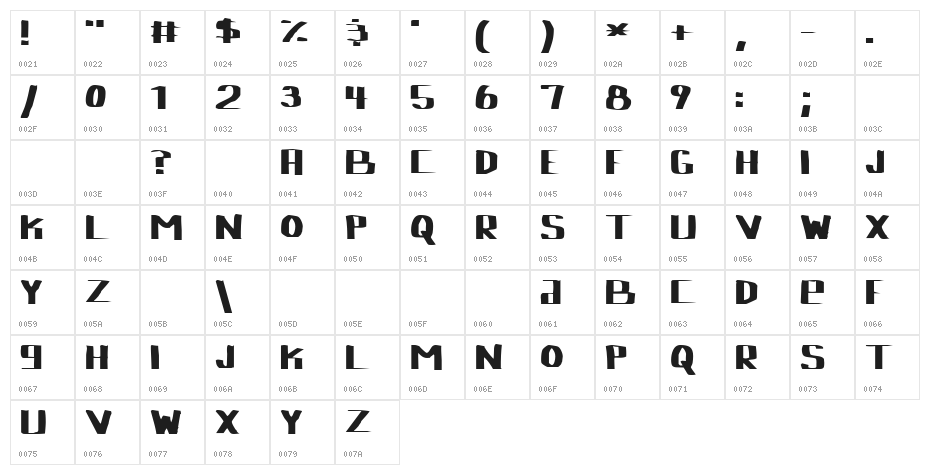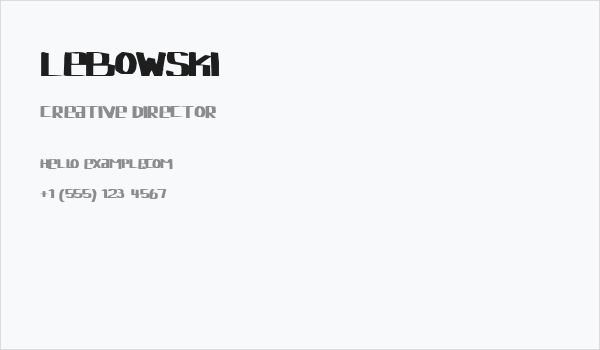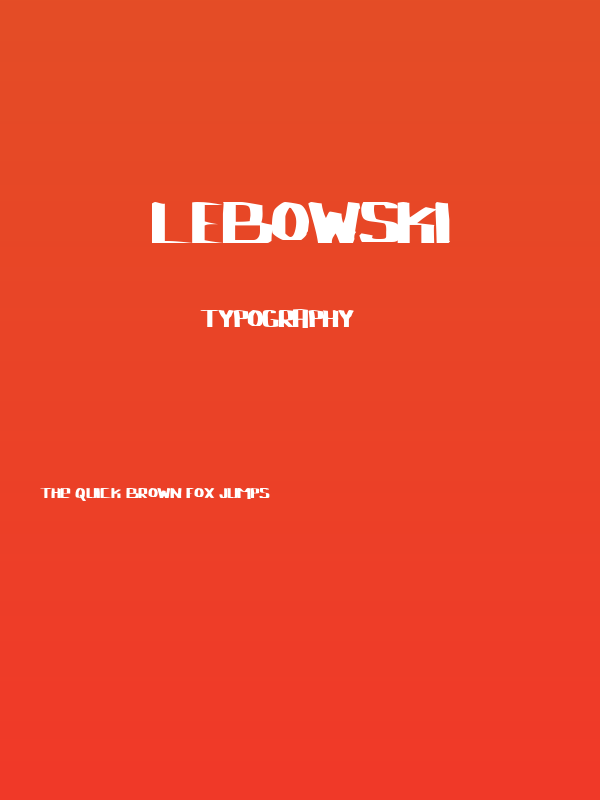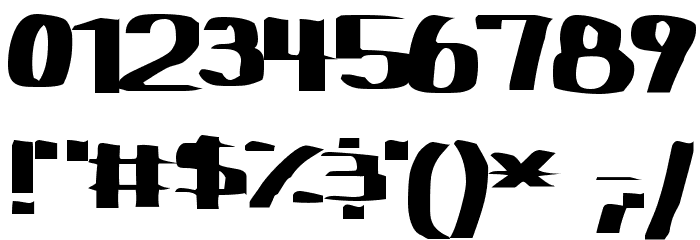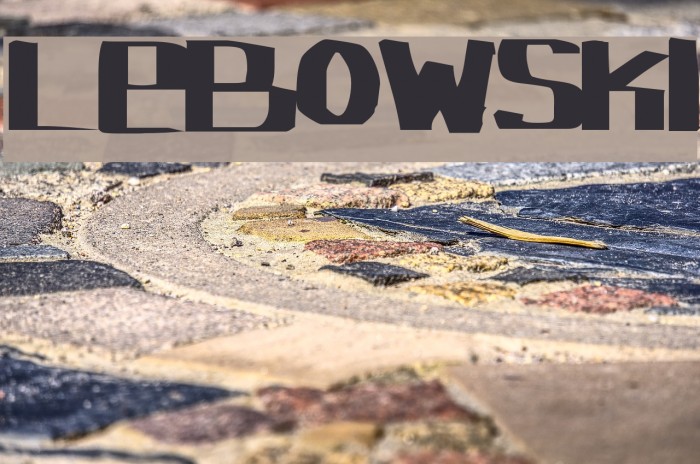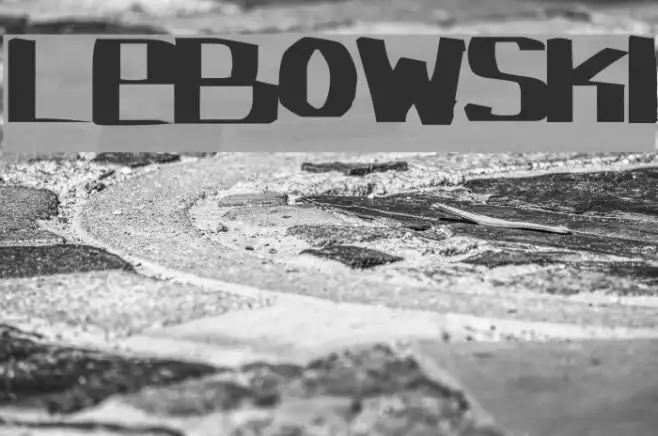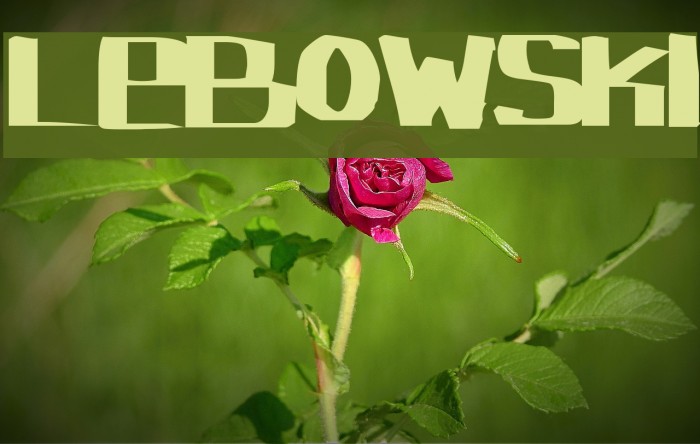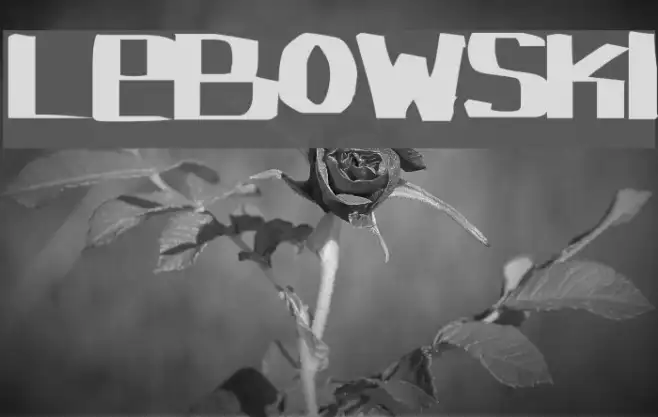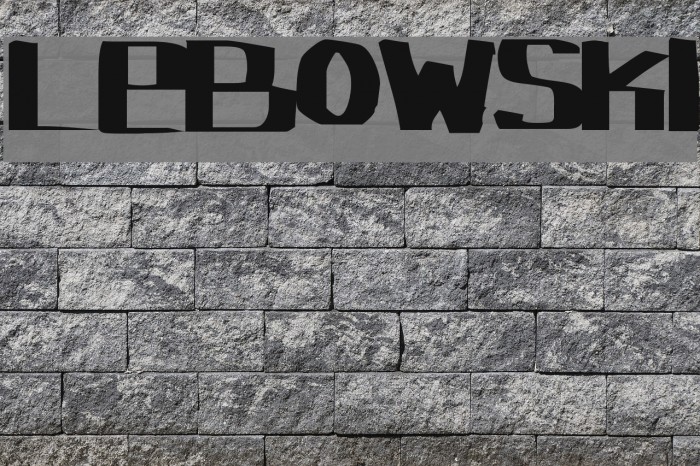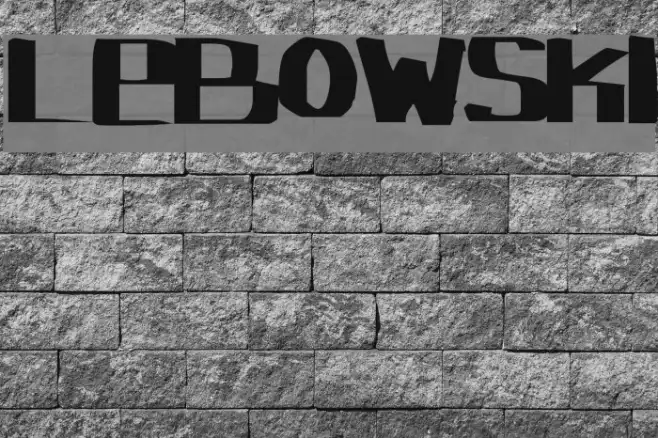
Lebowski Font
Lebowski Description
This font features a bold and dynamic style with a strong presence. The characters are uniquely designed with sharp angles and a slightly distorted appearance, giving them a modern and edgy feel. The uppercase and lowercase letters maintain a consistent style, while the numbers and special characters complement the overall aesthetic. The font's boldness and distinctive look make it suitable for attention-grabbing designs.
| Proposed Projects | Ideal for posters, album covers, branding, and any project requiring a bold statement. |